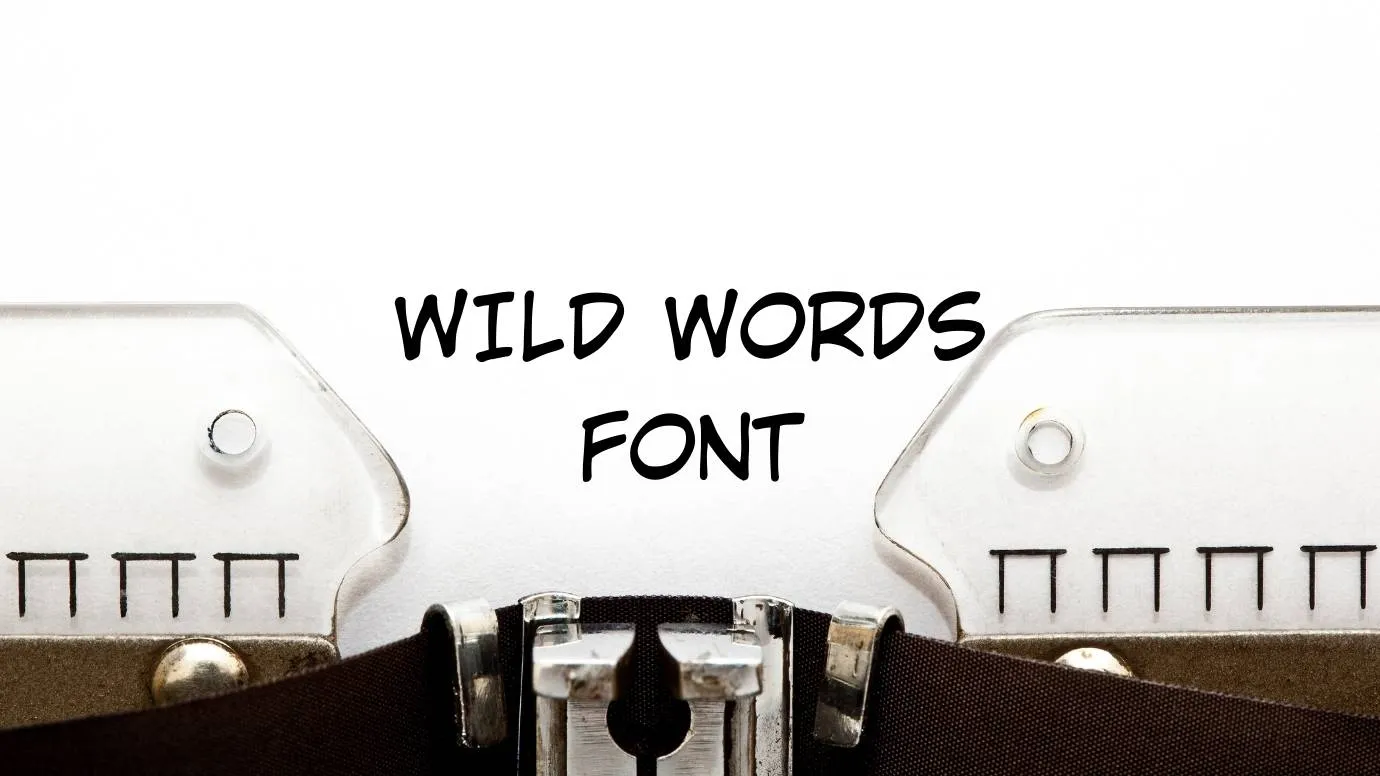
Wild Words Font Family is a superb quality brush font that was designed by John Roshell. It was released in the year of 1996 by a notable digital lettering foundry namely Comicraft and it is also known for many other astonishing typefaces.
Wild Words Font
NameWild Words Font
DesignerJohn Roshell
FoundryComicraft
StyleBrush
Date Released1996